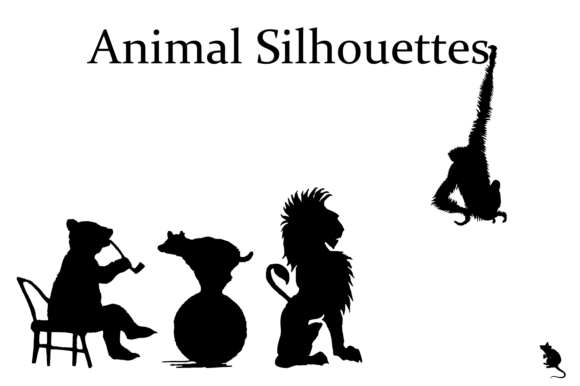
Introducing Animal Silhouettes Two, a remarkable dingbat font that captures the essence of wildlife. Dive into a world brimming with majestic animal silhouettes, ready to adorn your creative projects with captivating designs.
Experience the untamed beauty of Animal Silhouettes Two, a font crafted with precision and artistry. Each character dances across the page, bringing to life elephants, tigers, lions, birds, and many more creatures. Unleash your imagination and let these silhouettes weave a captivating narrative.
Explore the depths of this spectacular font, with each character meticulously crafted to preserve the essence of nature. From the delicate curves of a butterfly's wings to the powerful stance of a lion, Animal Silhouettes Two brings the wild right to your fingertips.
Open the doors to endless possibilities with Animal Silhouettes Two. Whether you're a designer, artist, or anyone in between, this font will ignite creativity and inspire unique expressions. From logos and branding to invitations and web design, let these silhouettes elevate your work to new heights.
Immerse yourself in the captivating world of Animal Silhouettes Two. This remarkable dingbat font is not just a collection of characters; it's a portal to a world where imagination roams free. You won't just add text to your designs; you'll unleash a symphony of visual wonders.